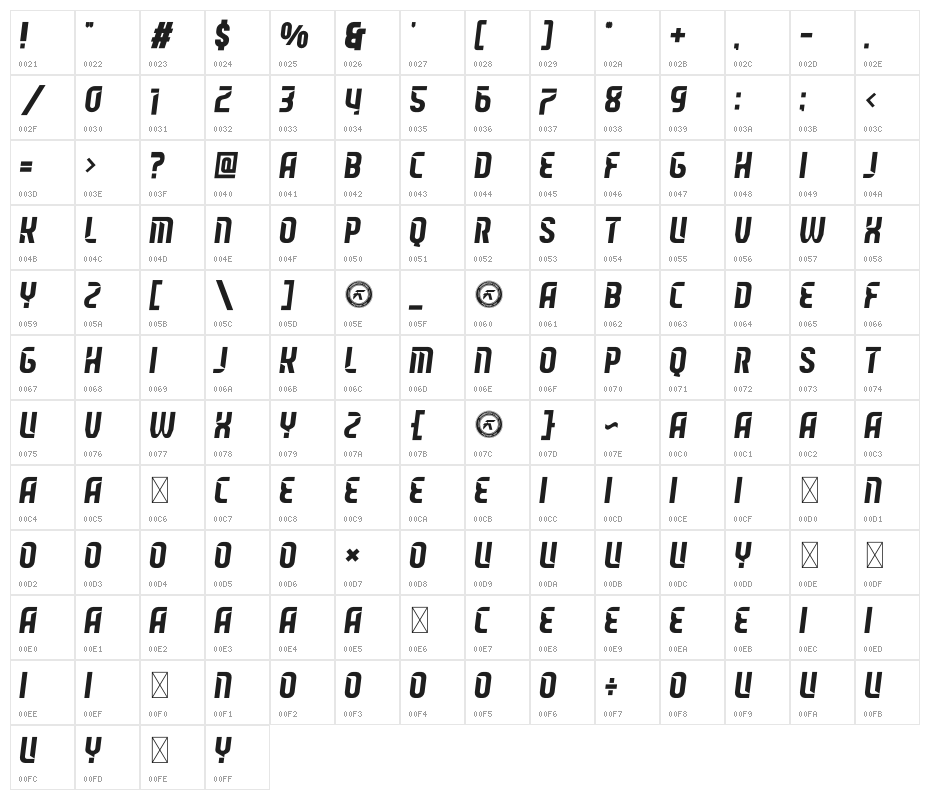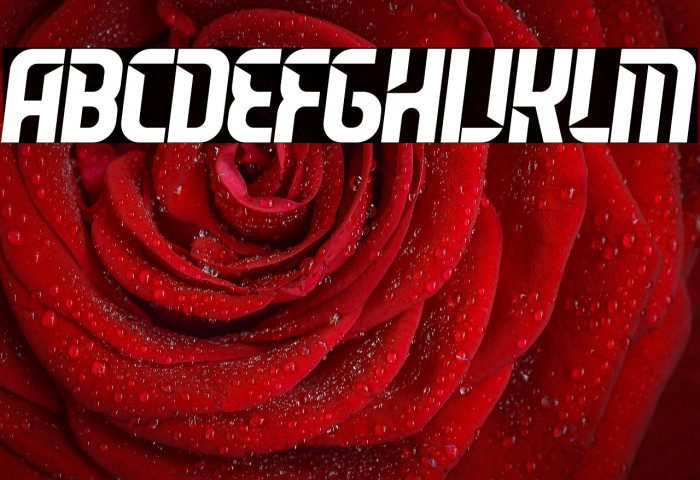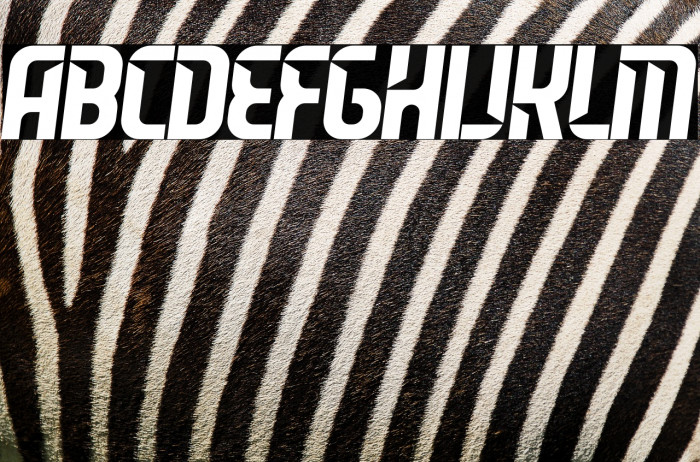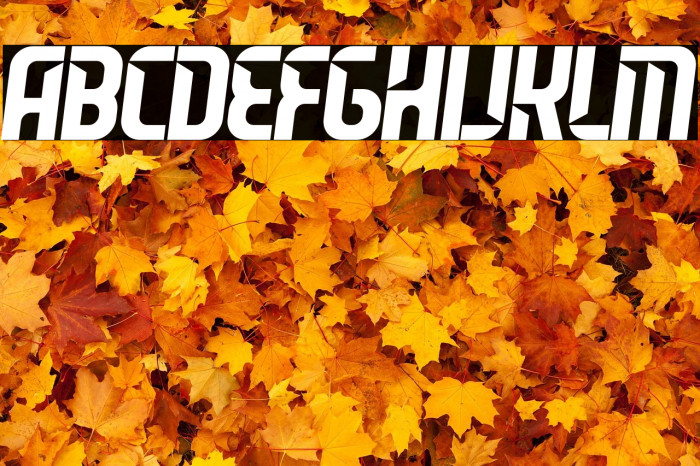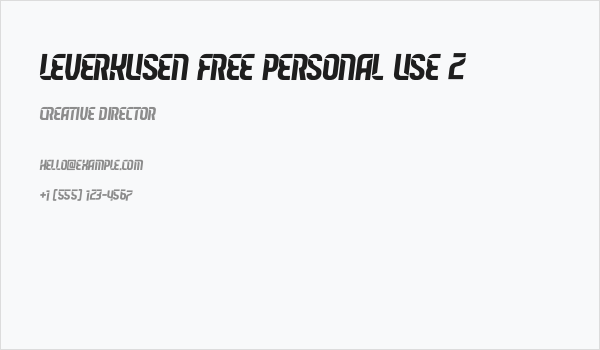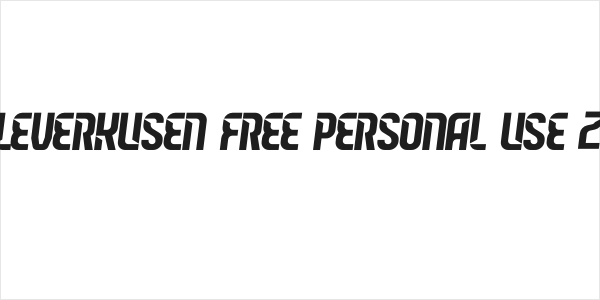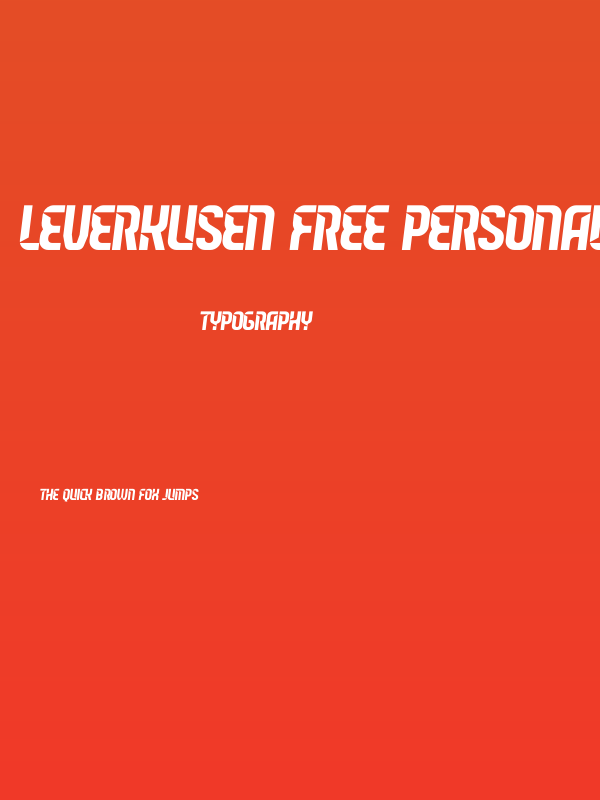
Leverkusen Free Personal Use 2 Font
Leverkusen Free Personal Use 2 Description
This font features a bold and dynamic style with a distinctly modern and futuristic appearance. The characters are designed with sharp angles and a forward-leaning stance, giving an impression of speed and motion. The uppercase and lowercase letters maintain a consistent geometric structure, while the numerals and special characters complement the overall aesthetic. The font's high contrast and bold weight make it particularly eye-catching, suitable for projects that require a strong visual impact.
| Proposed Projects | Ideal for sports branding, technology-related designs, and dynamic advertising campaigns. |